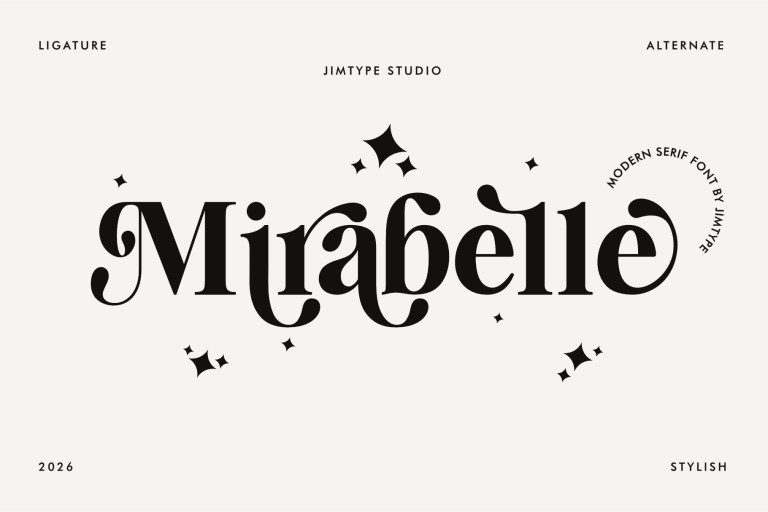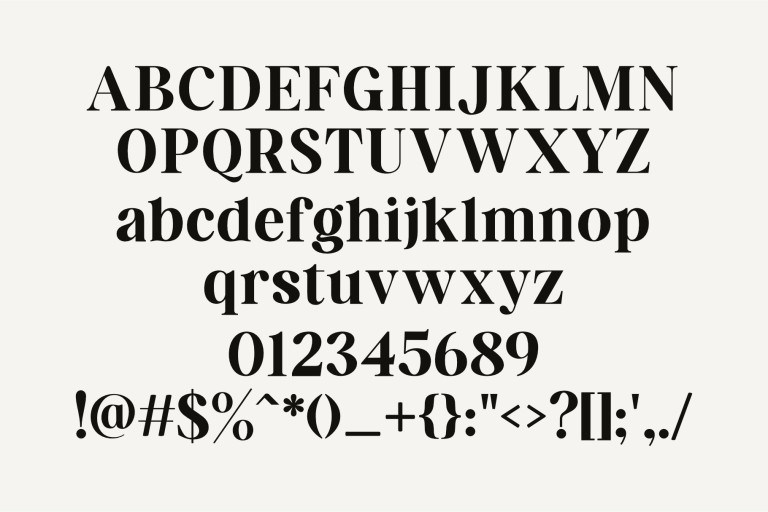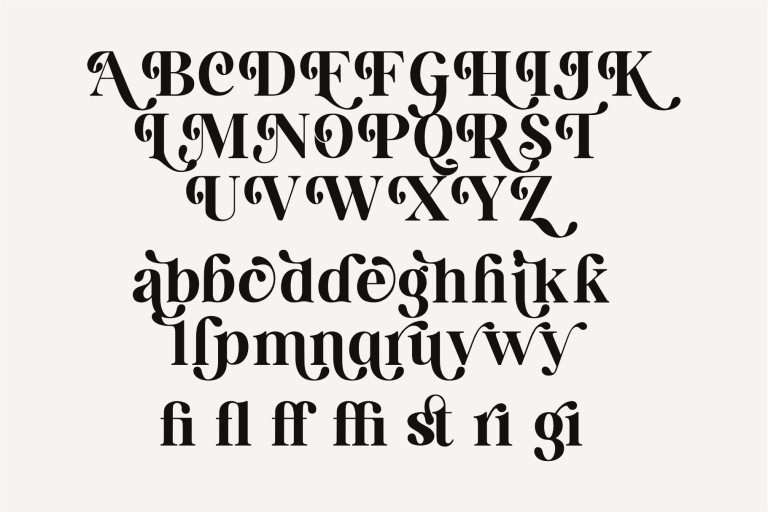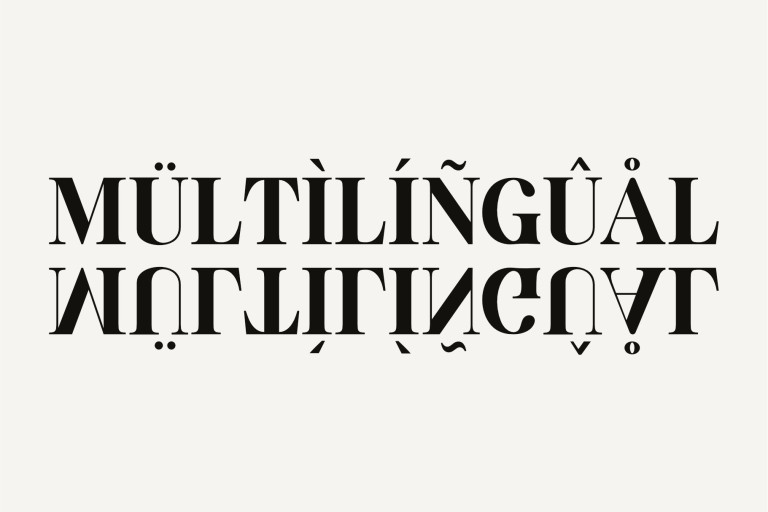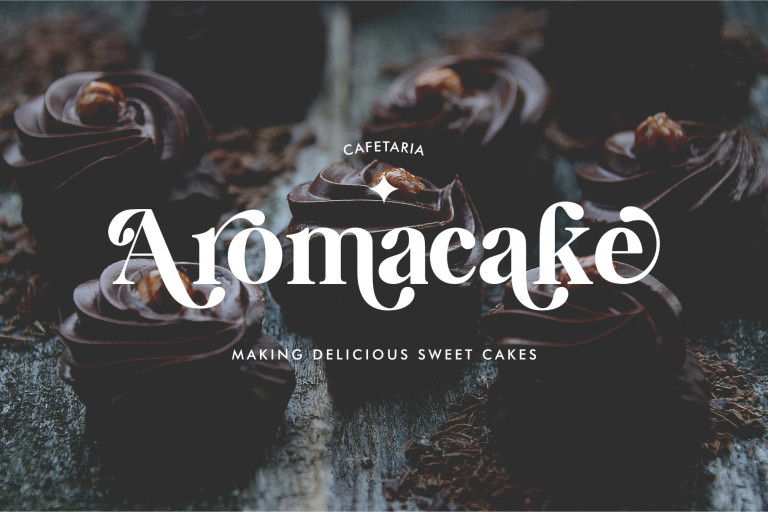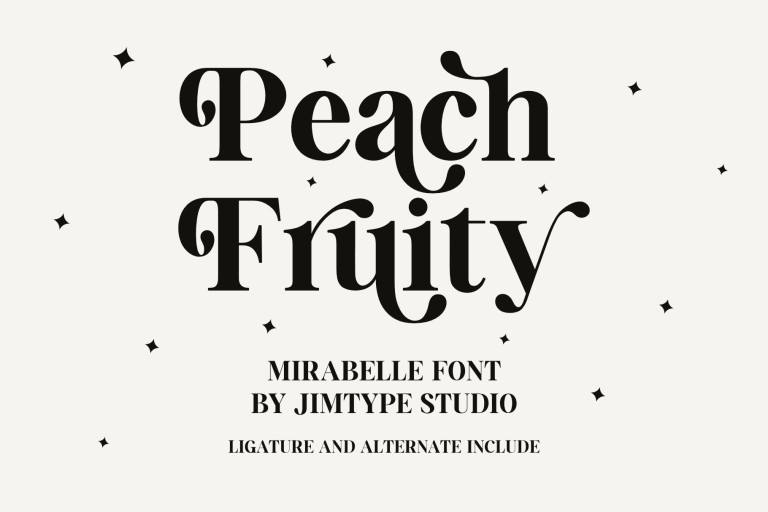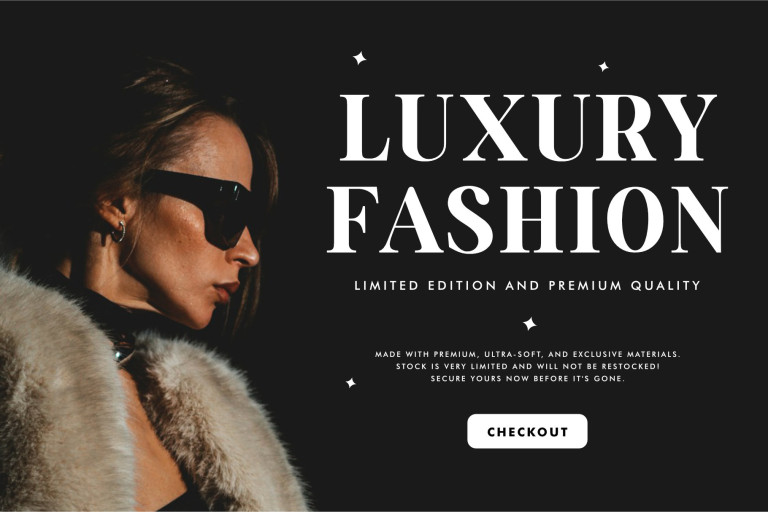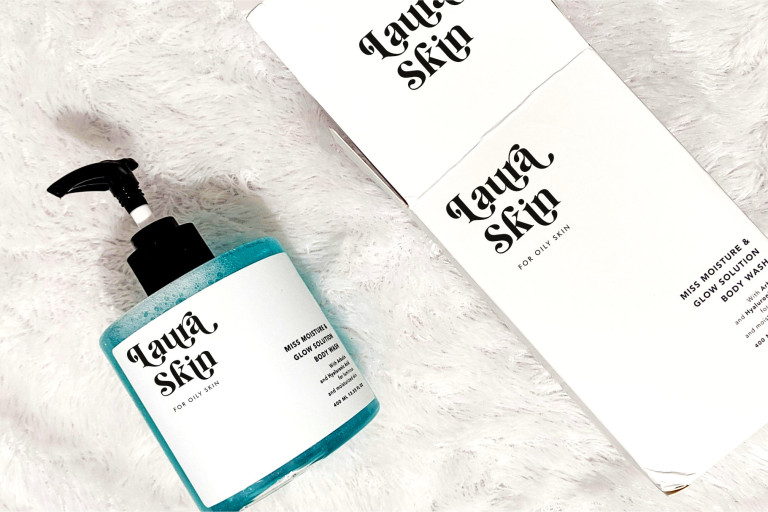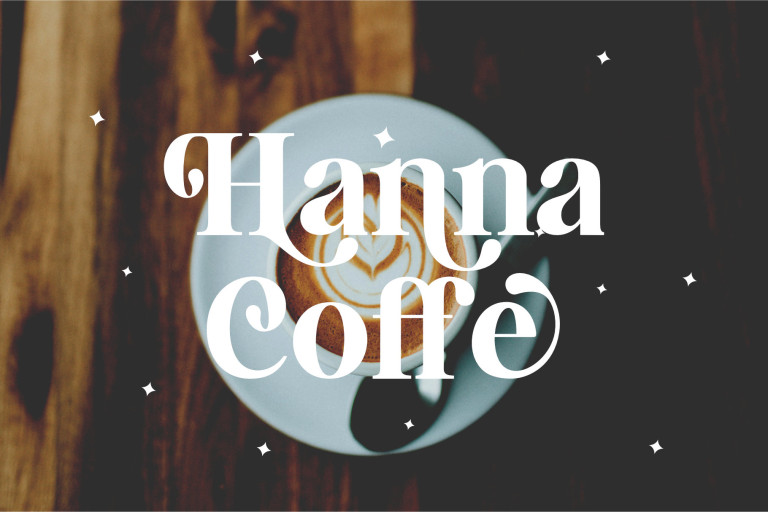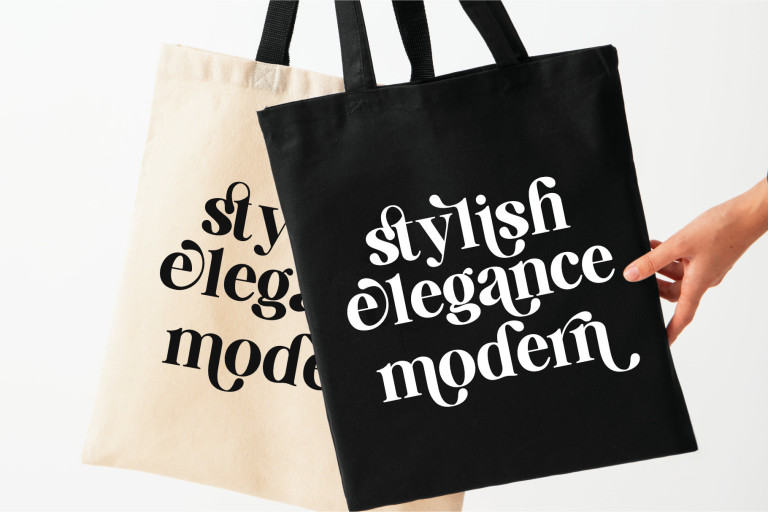
Mirabelle Modern Serif - Branding Business Font from Jimtype Studio
Mirabelle Modern Serif – Branding Business Font from Jimtype Studio
Mirabelle is a stylish modern serif font! This stylish and elegant font blends elegance with timeless refinement. Designed with captivating alternate characters and artistic ligatures, Mirabelle adds an instant high-end touch to any project, from luxury branding and magazines to social media designs, high-end logos, premium packaging, and editorial designs that demand both beauty and functionality.
Mirabelle Font